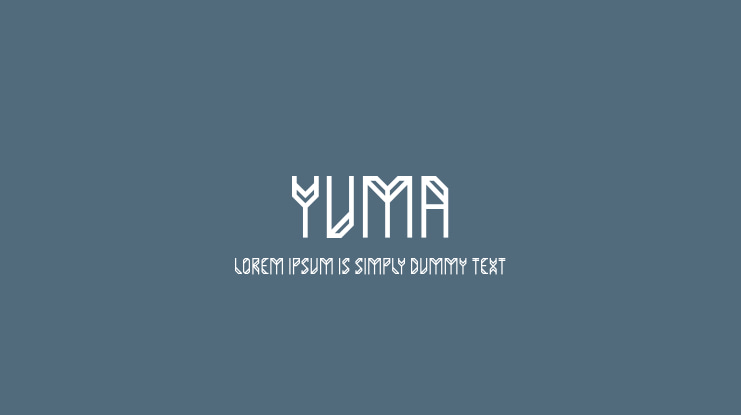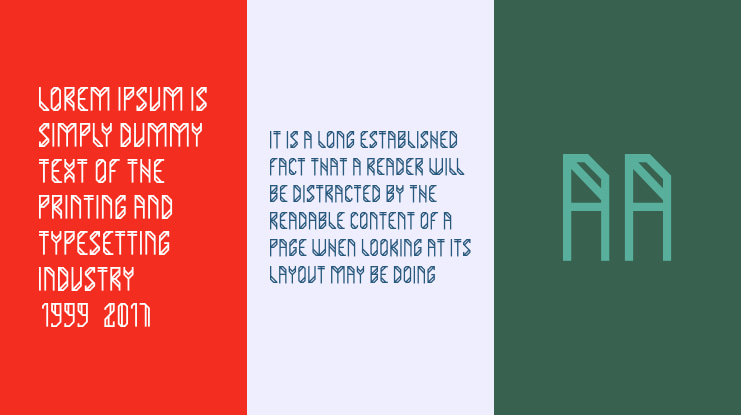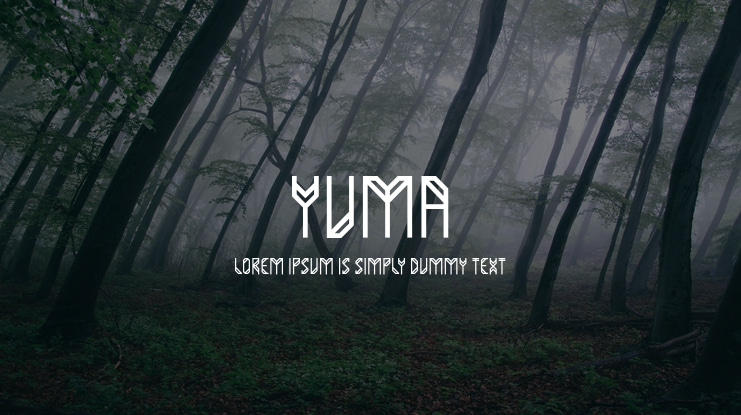
Yuma Font
Gumpita Rahayu
Yuma is experimental fonts with straight glyph, inspired with typical Navajo textiles who have strong geometric patterns. these fonts are specifically designed for display type for titles, headlines, posters, and perfect with T-shirt Designs.